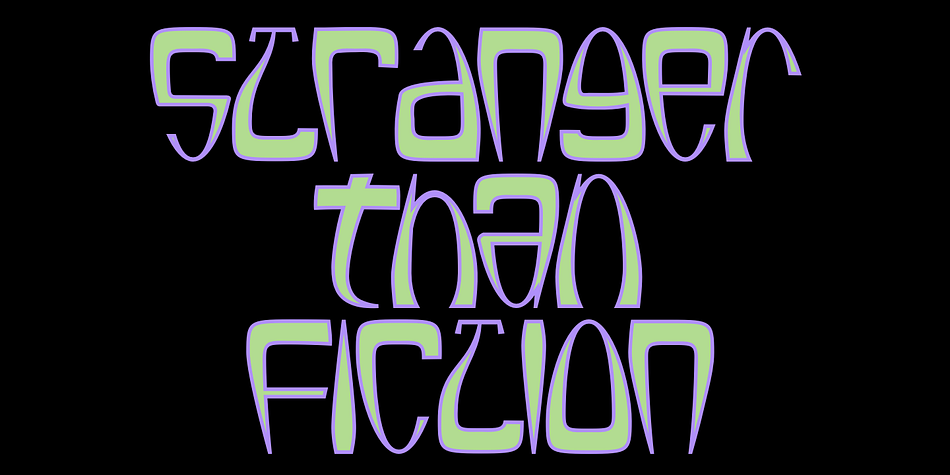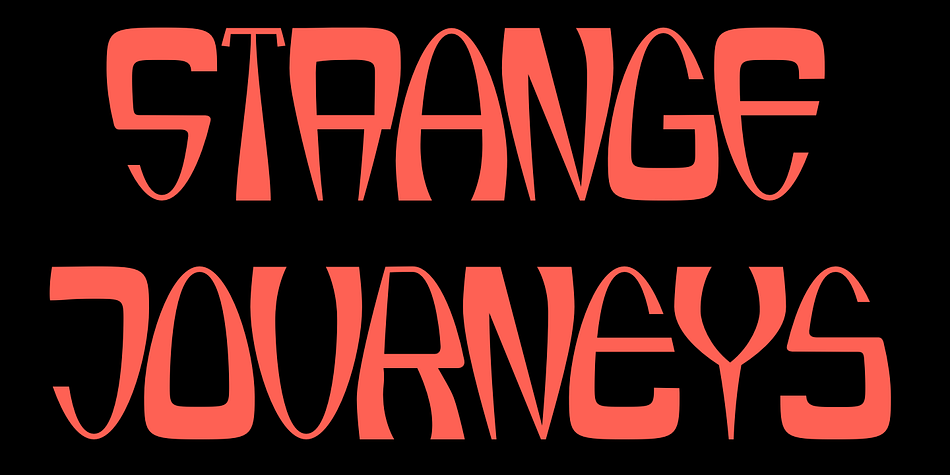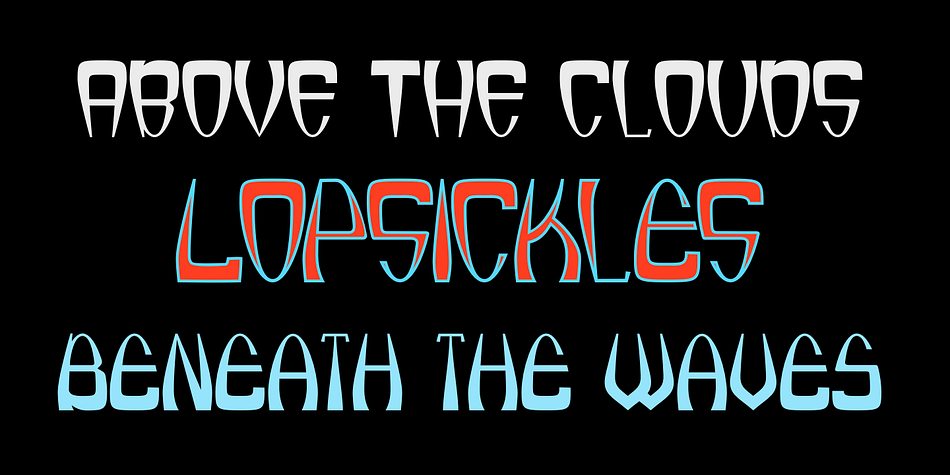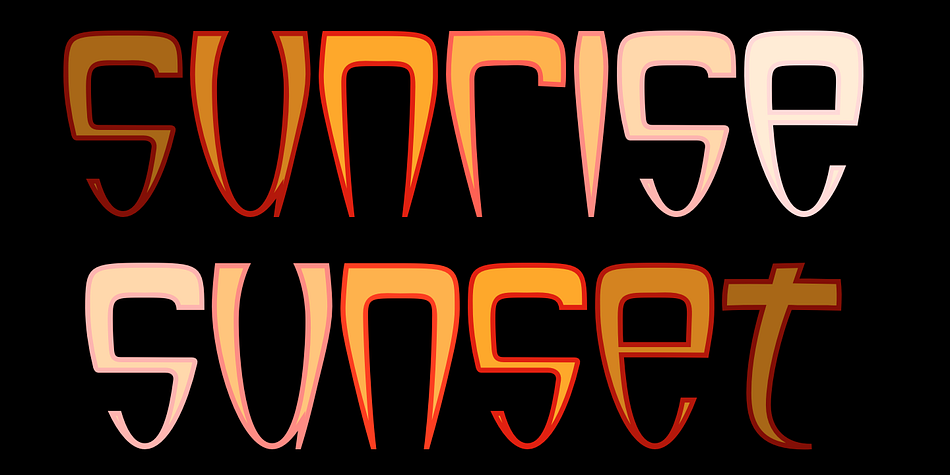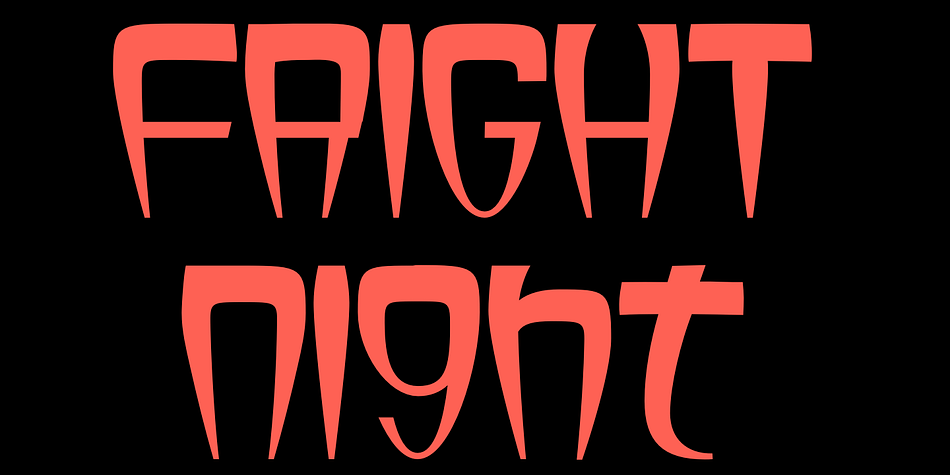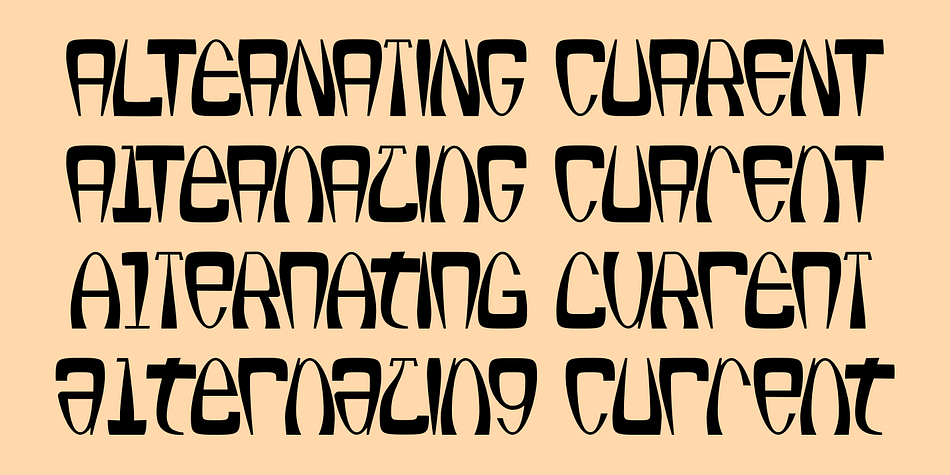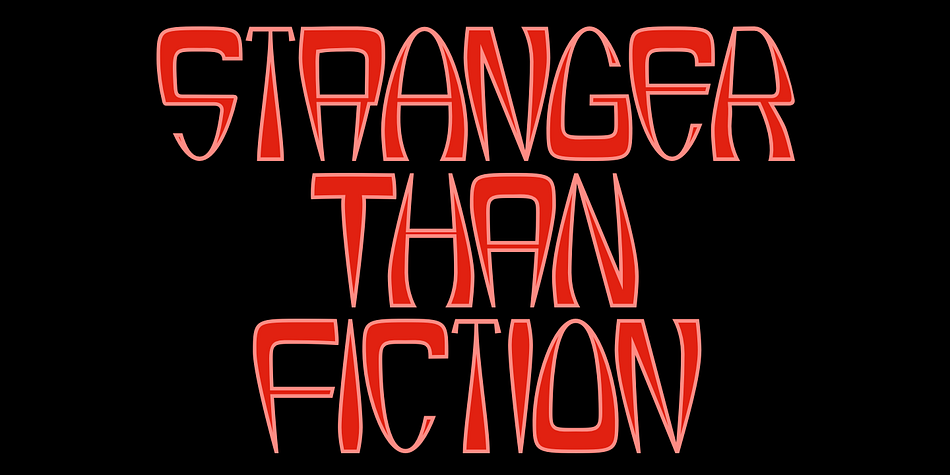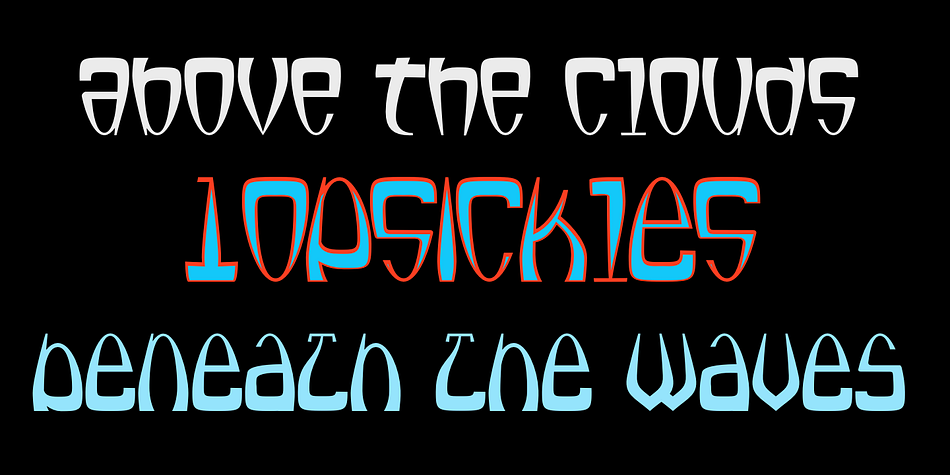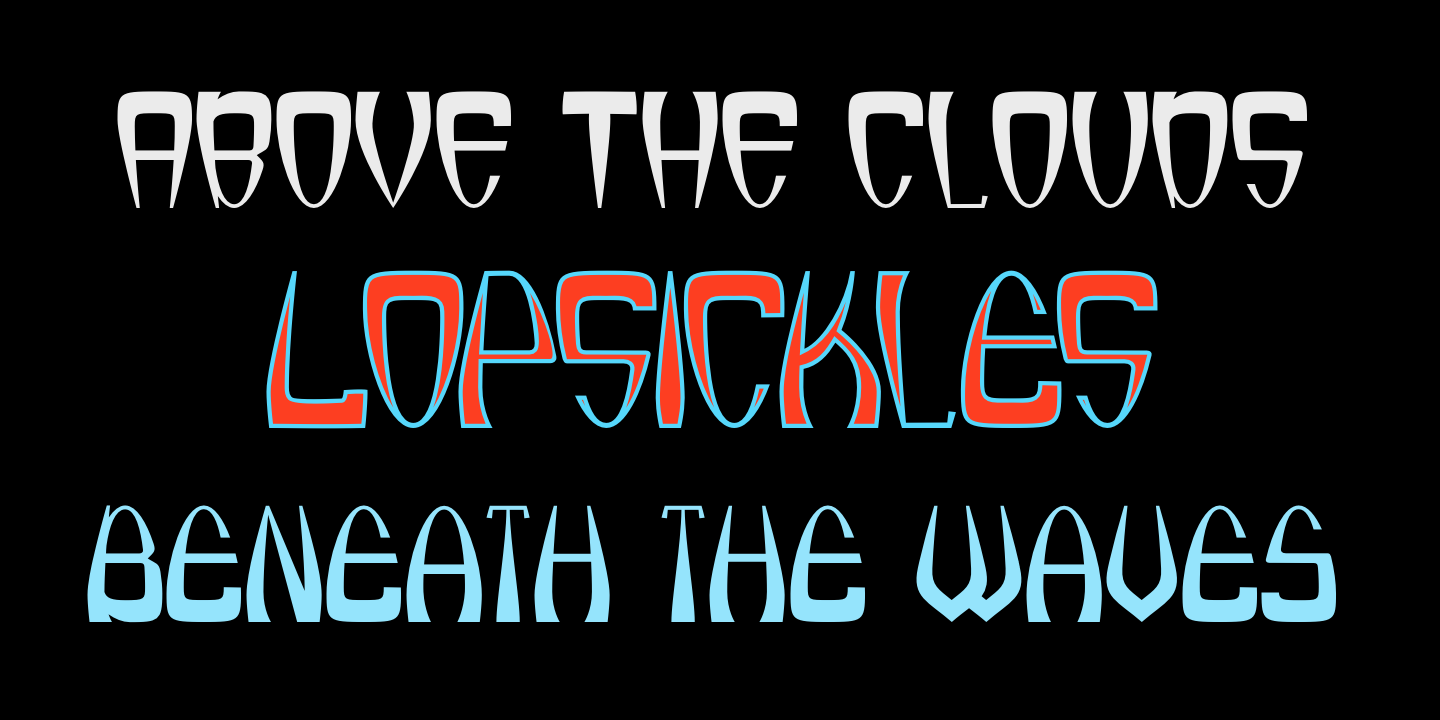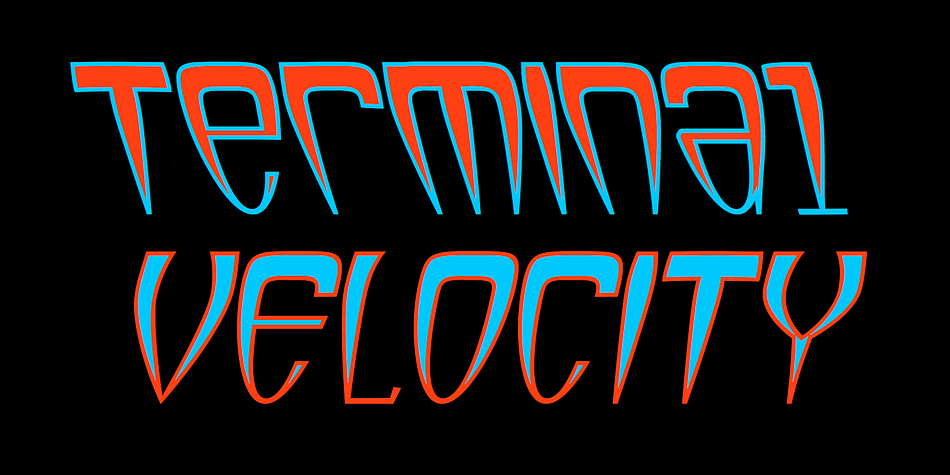
Lopsickles
Designed by Robert Schenk, Lopsickles is a display and novelty font family. This typeface has twenty styles and was published by Ingrimayne Type.
Lopsickles is a family in which the letters are based on lopsided, distorted ellipses. The family has four sets of letters that are combined in six different ways, yielding six fonts. Four of these fonts (styles AB, Ad, Bc, and cd) use the OpenType feature Contextual Alternatives (calt) to alternate letter sets so that top-heavy characters alternate with bottom-heavy characters. The spacing in these fonts is designed for alternating characters and will result in overlap if the characters do not alternate. The other two styles (Ac and Bd) are spaced normally. Style Ac contains the two character sets that are top heavy and style Bd has the two character sets that are bottom heavy. The Ac and Bd fonts have italics and backslanted styles that may be useful to suggest speed.
Each of these ten fonts has an inset style designed to be used in a layer above the base font. This layering can be used to give the effect of hollow letters or to add a colored interior.
Lopsickles joins several other alternating-characters families in the IngrimayneType library including Snuggels, CloseTogether, and Caltic, but is visually very different from them. It is a strange, unusual family that will get noticed.